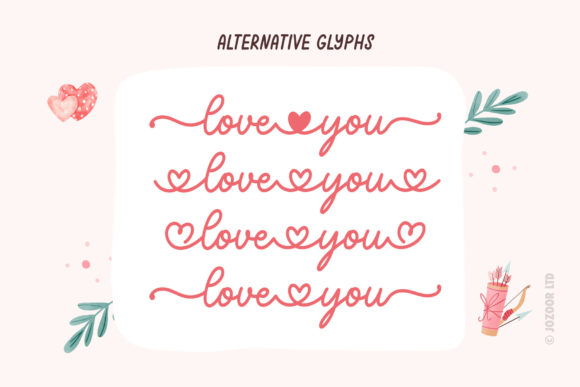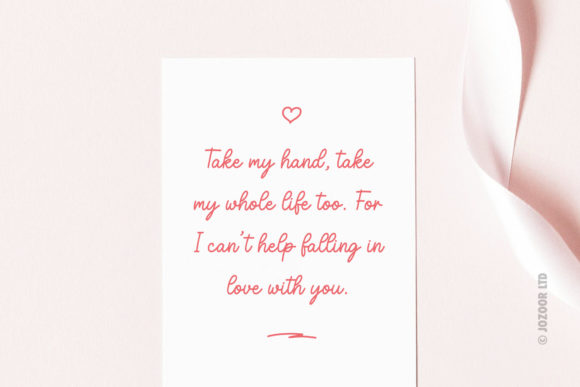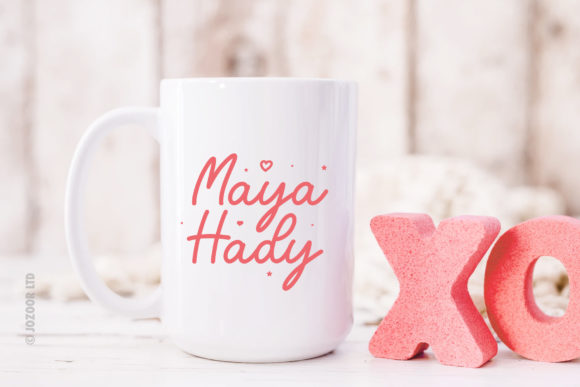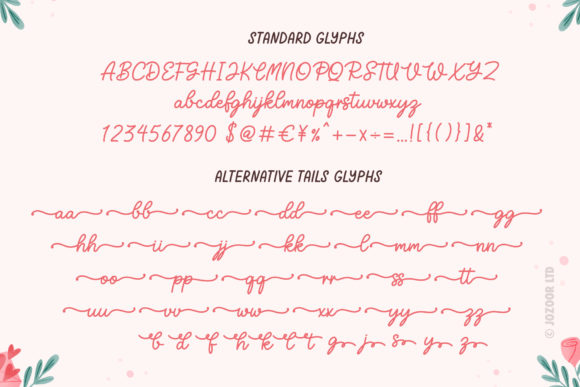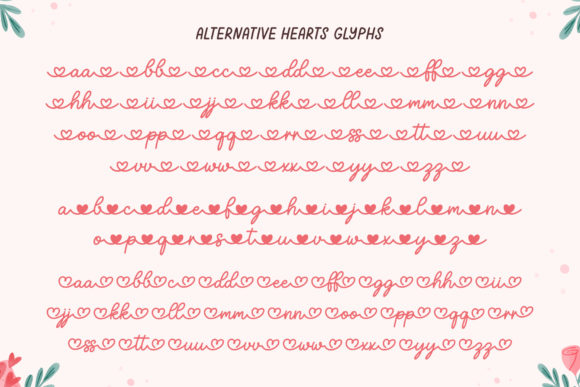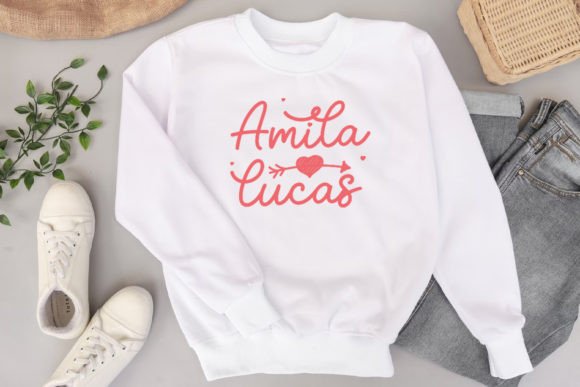
Introduction to Malia Love You Font
Malia Love You is a romantic and sweet handwritten hearted font.
It feels equally charming and delicate, ideal for Valentineโs Day, wedding invitations, save the date cards, fine art papery, feminine branding, personal gift cards, and any other lovely projects This font is PUA encoded, which means you can access all of the glyphs and swashes with ease.
Key Features of Malia Love You Font